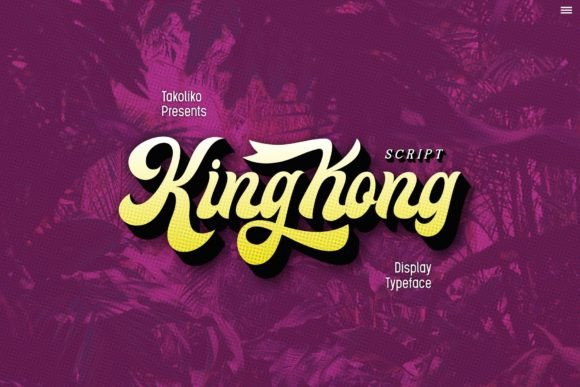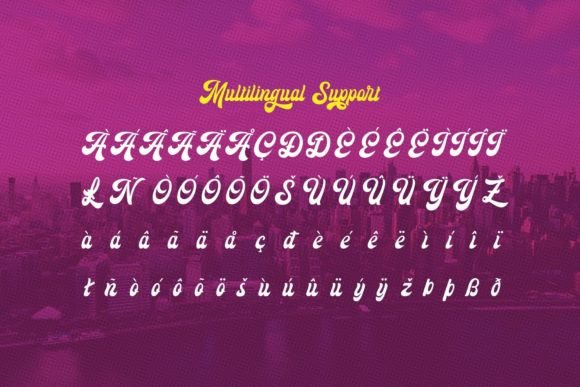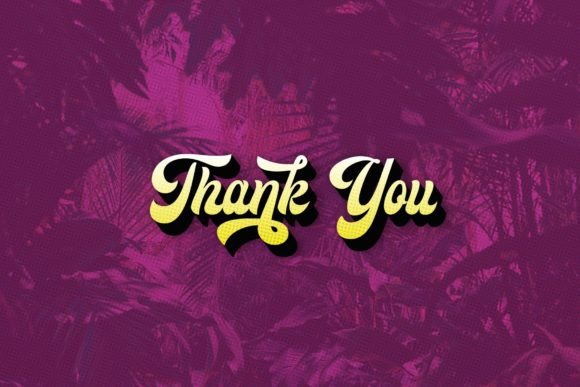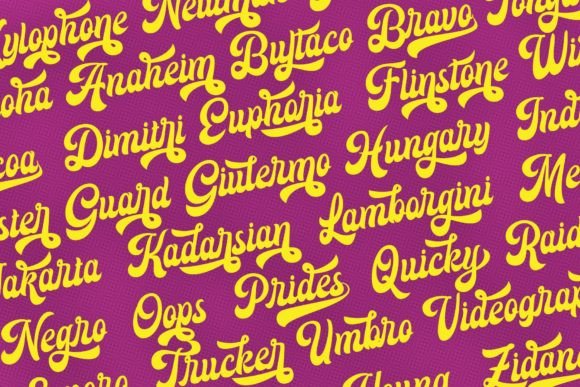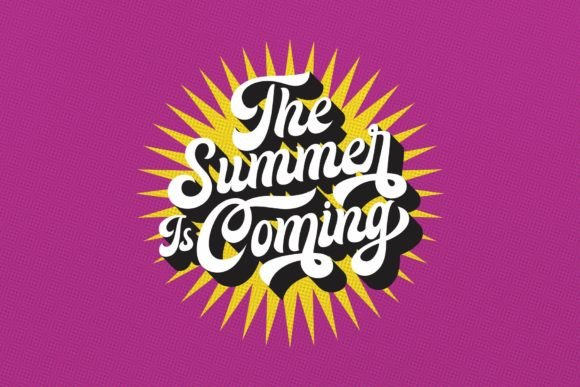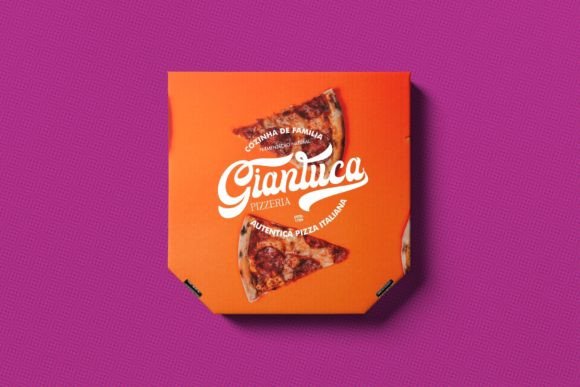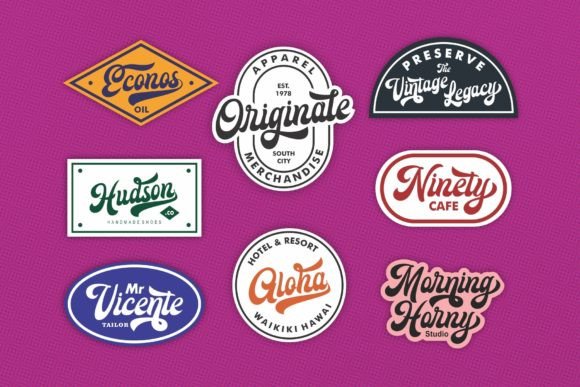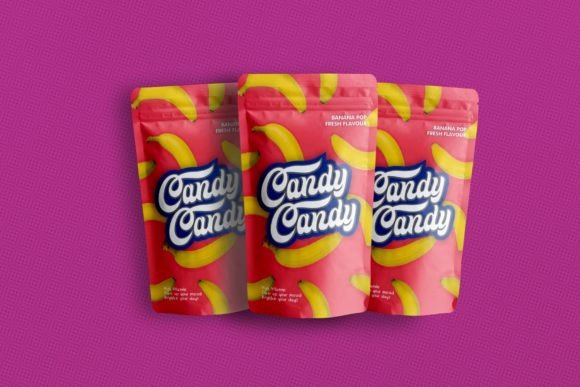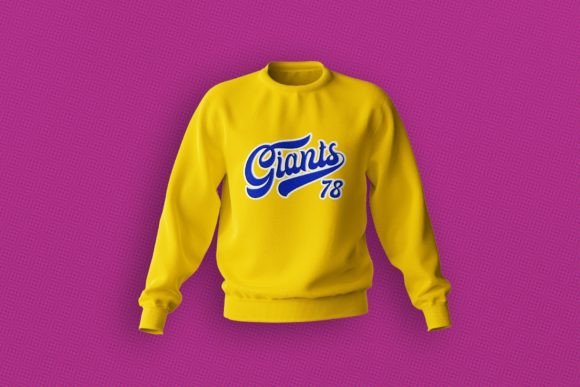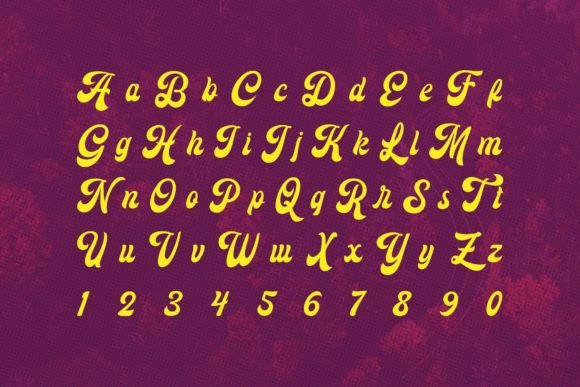
Kingkong Font
About Kingkong Font
“KingKong” is a retro and groovy script display font that adds a playful and whimsical touch to your design projects. With its unique and quirky appearance, this font can inject a dose of fun and creativity into various designs, making them stand out and catch the eye.
The font’s charm lies in its ability to convey a sense of nostalgia and lightheartedness. Its retro script style brings to mind a bygone era while maintaining a groovy and lively vibe. “KingKong” is an excellent choice for projects where you want to create a visually distinctive and memorable impression.
Whether you’re working on posters, banners, invitations, or any design that calls for a touch of playfulness, “KingKong” offers a fun and vibrant aesthetic that can instantly brighten up your creations. Its unique and quirky design makes it suitable for adding a touch of individuality to your projects.
In summary, “KingKong” is a retro and groovy script display font that adds a whimsical and playful element to your design projects. Its unique and quirky appearance makes it an excellent choice for designs that aim to stand out and capture a sense of nostalgia. With “KingKong,” you can confidently add a fun and creative touch to your projects, resulting in eye-catching and memorable designs.